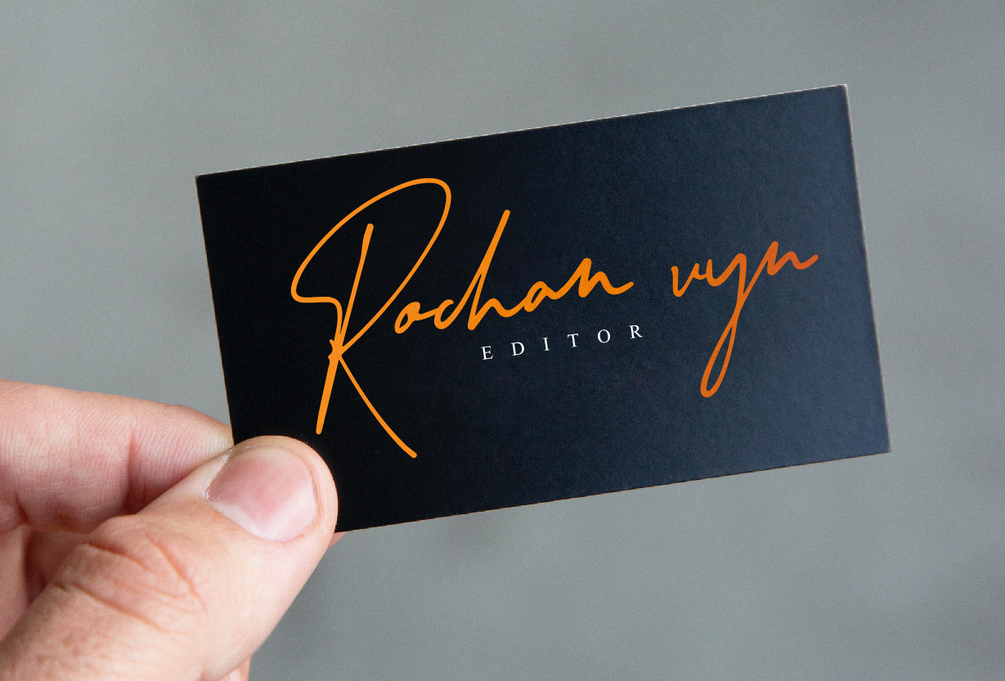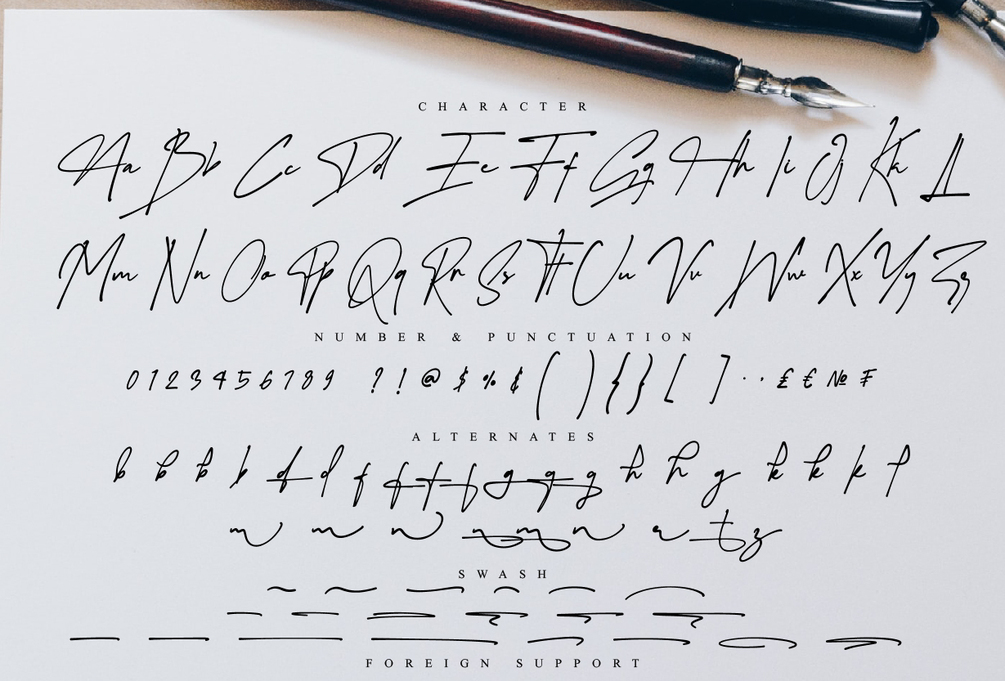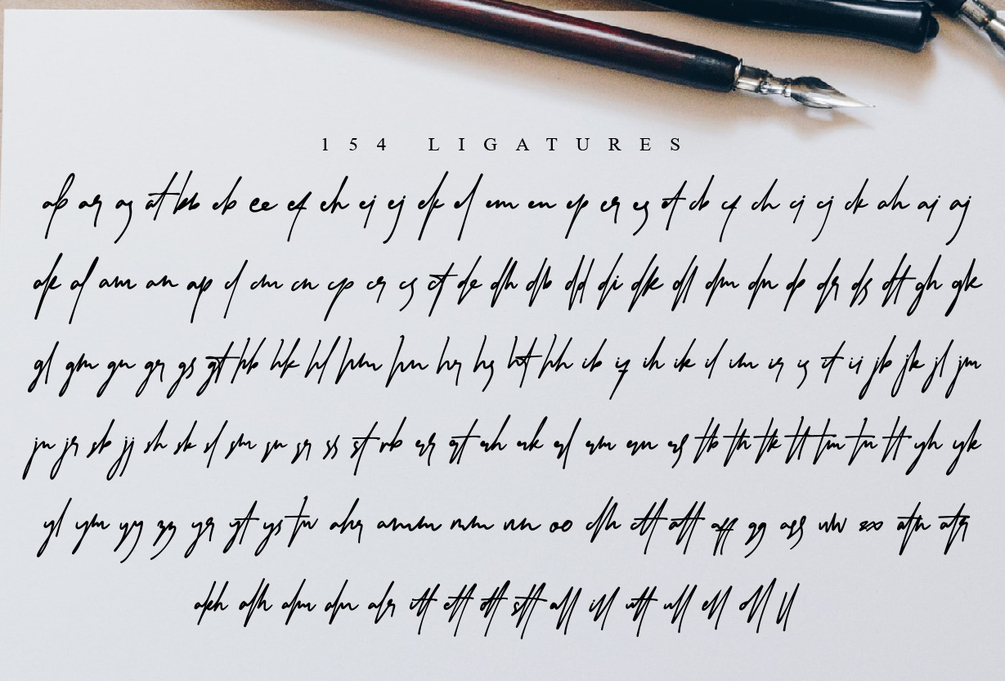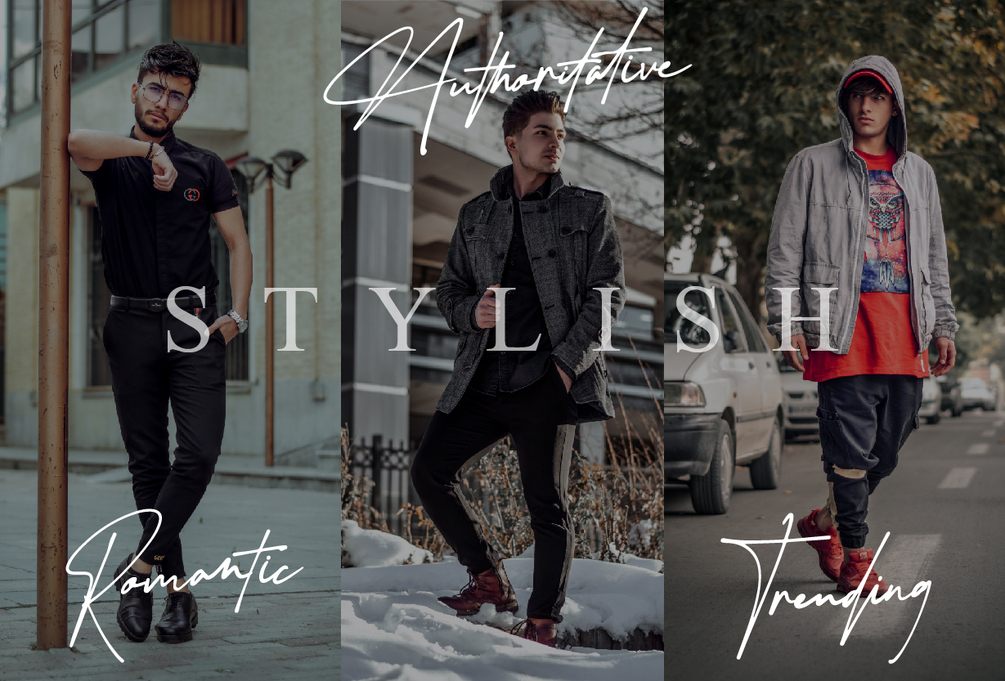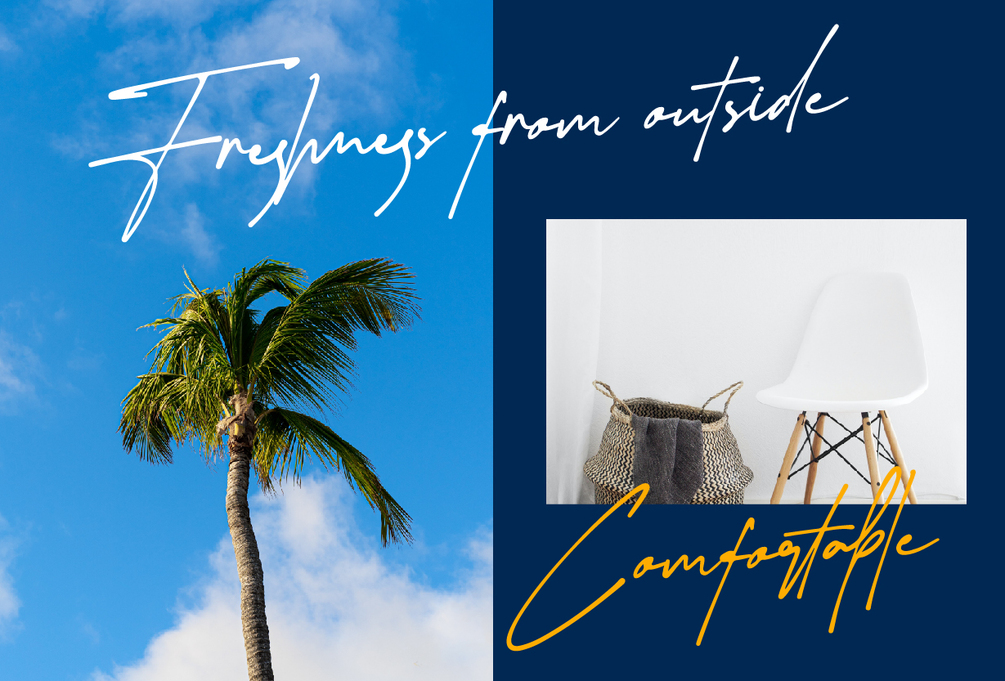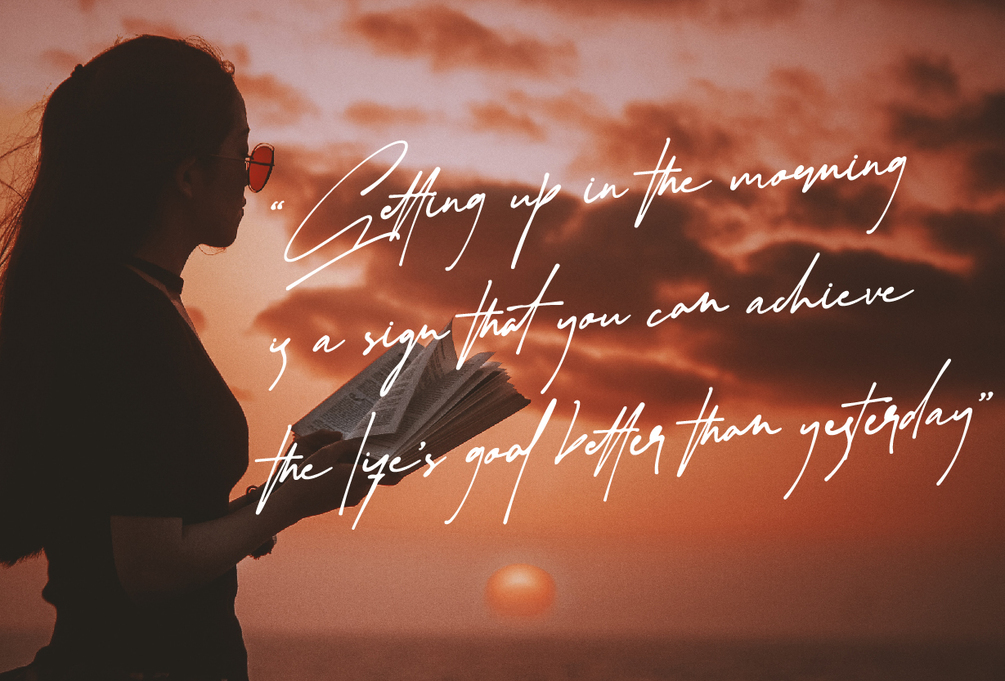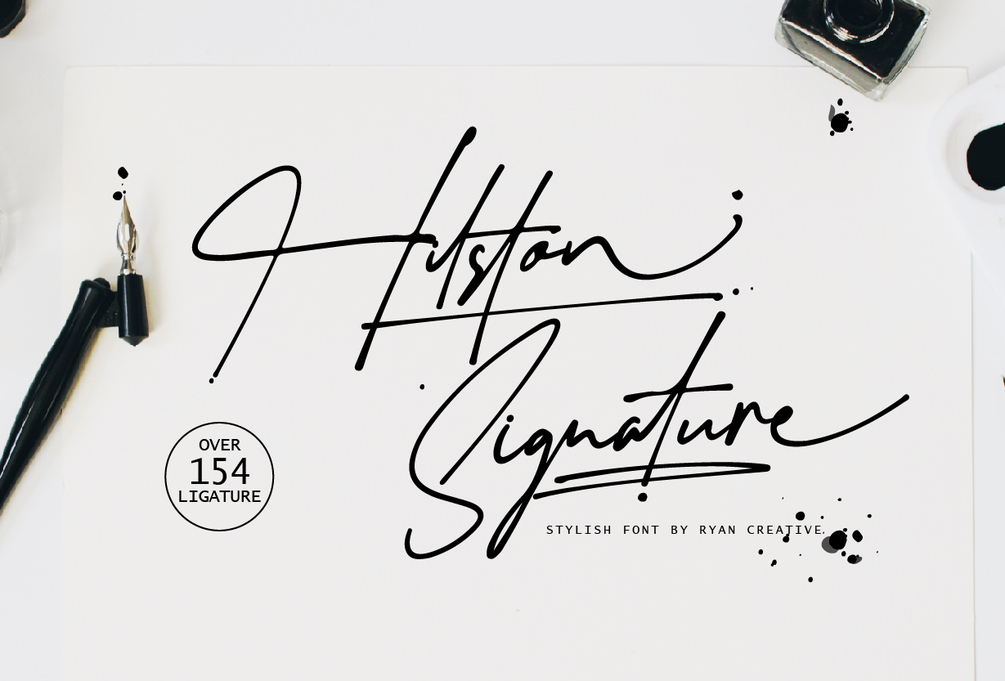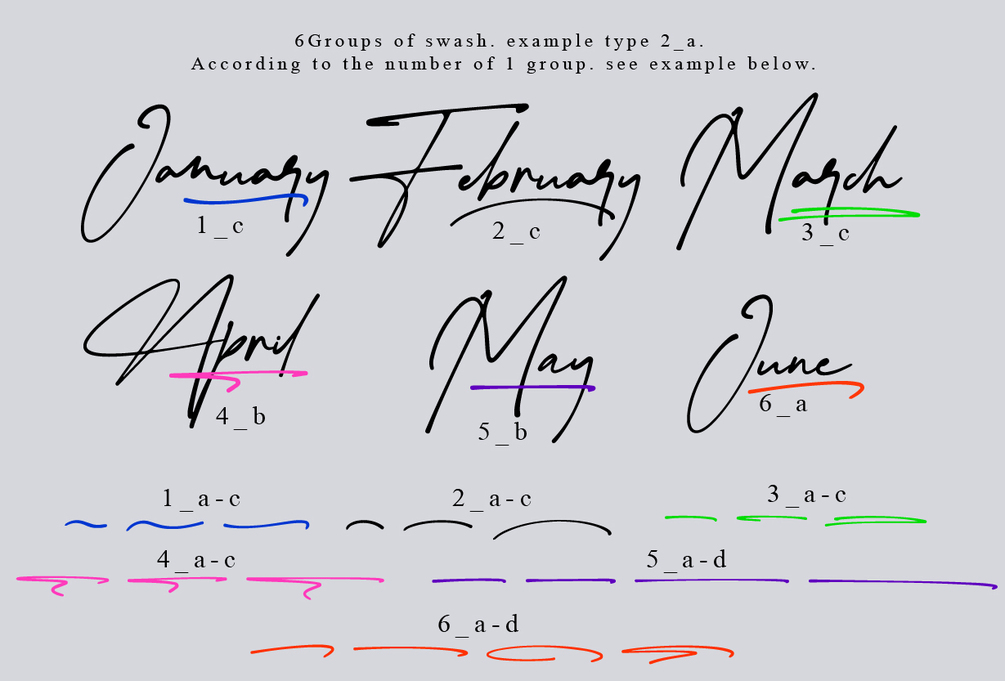
Hilston - Signature font
Hilston signature is a type of font that resembles elegant and beautiful handwriting, often used to give a personal and luxurious impression to graphic designs or documents. These fonts typically have smooth, squiggly accents, with rounded, curved edges, much like handwriting written with a pen or brush. The letters look stylish and flow, showing a distinctive luxury and elegance. Hilston is supported with additional characters that have Alternates, Ligatures and swashes that will help you achieve beautiful styles with your own creations. This font is often used in logo designs, wedding invitations, greeting cards, digital signatures, and other designs that want to give off a luxurious and elegant impression.
FEATURES ;
+ Uppercase, Lowercase, Foreign Support, Numbers and Punctuation
+ Alternative, Ligatures & Swash